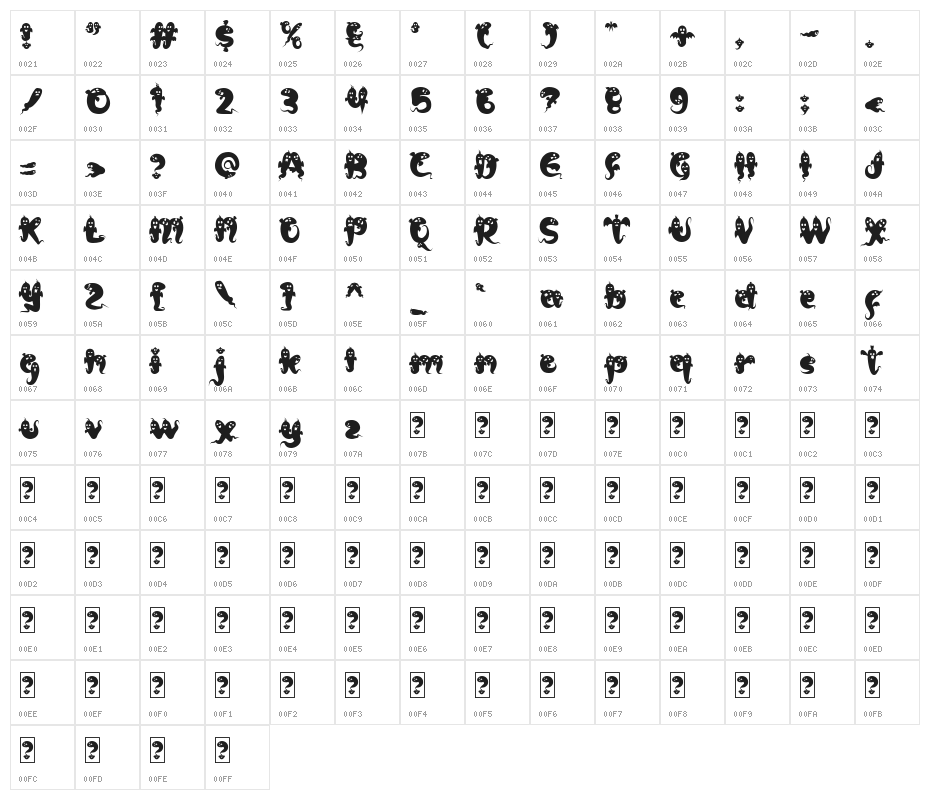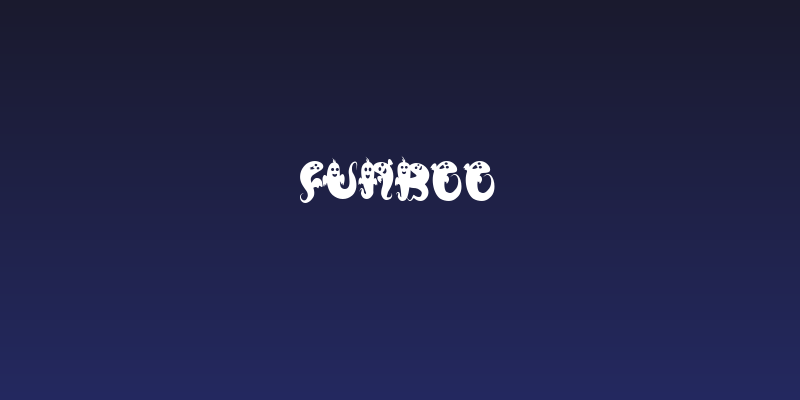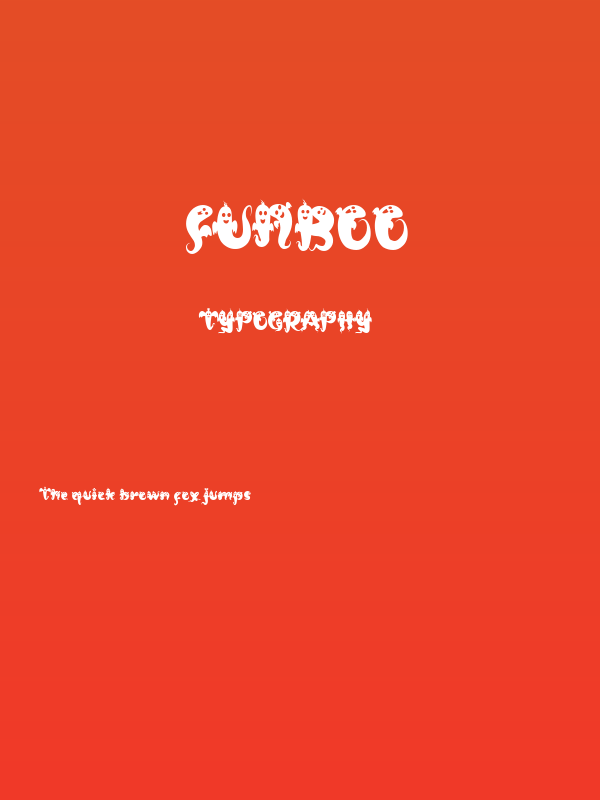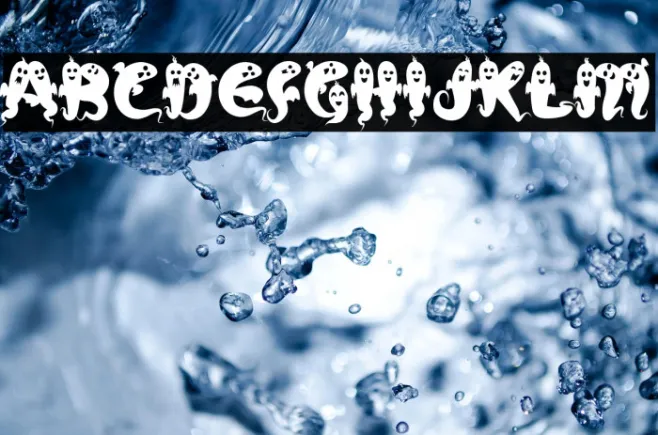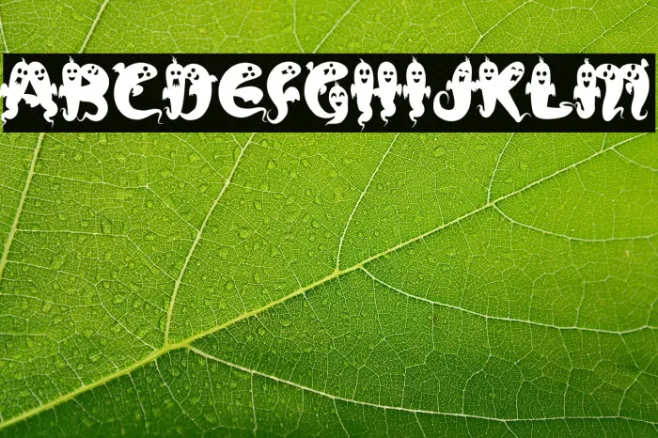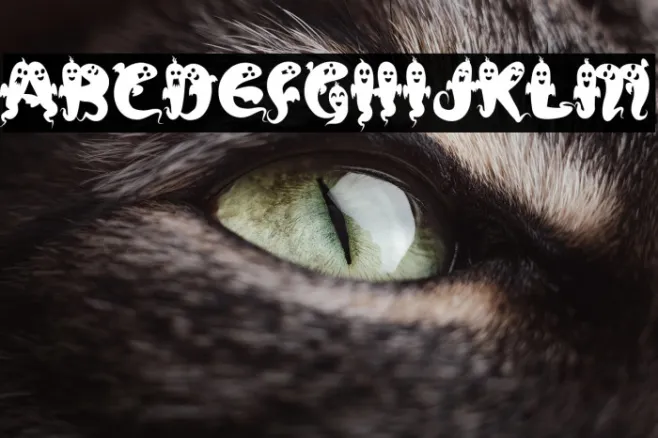
Funboo Font
Funboo Description
This playful and spooky font features ghostly characters with whimsical, flowing tails and expressive eyes. Each letter and number is designed to resemble a cartoon ghost, adding a fun and eerie vibe. The characters are bold and have a unique decorative style, making them stand out with their quirky and imaginative design. The font's playful nature is perfect for Halloween-themed projects or any design that requires a touch of the supernatural. The special characters are equally creative, incorporating ghostly elements that maintain the overall theme.
| Proposed Projects | Ideal for Halloween invitations, themed party decorations, children's book titles, and playful branding. |